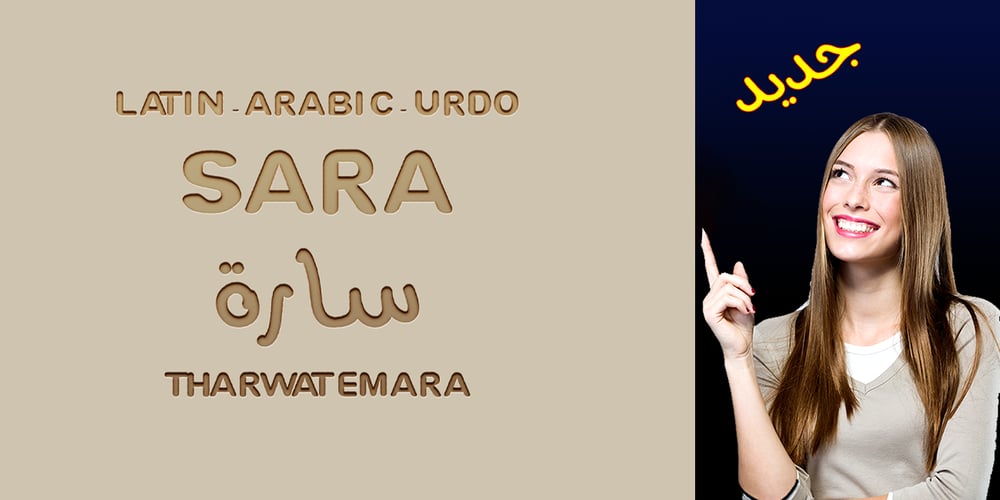
TE Sara Modern
TE Sara Modern font
TE Sara Modern Font Family was designed by Tharwat Mohamed Emara and published by Tharwat Emara. TE Sara Modern contains 1 styles and family package options. Its one of the SARA modern ( Arabic – LATIN – URDO) fonts, a spontaneous free line characterized by beauty and speed of reading. To be used in advertisements, writing titles, magazines, cartoons, films, serials, comics and plays. SARA MODERN font is one of the ( Arabic – LATIN – URDO) fonts. It is the most common font and is written in most Arab countries because it has the potential to be written in a narrow space when compared to other Arabic fonts. It is used in the titles of books, magazines, daily newspapers, commercials, banners, advertising, holiday cards, newspaper headlines, Introduction to students.